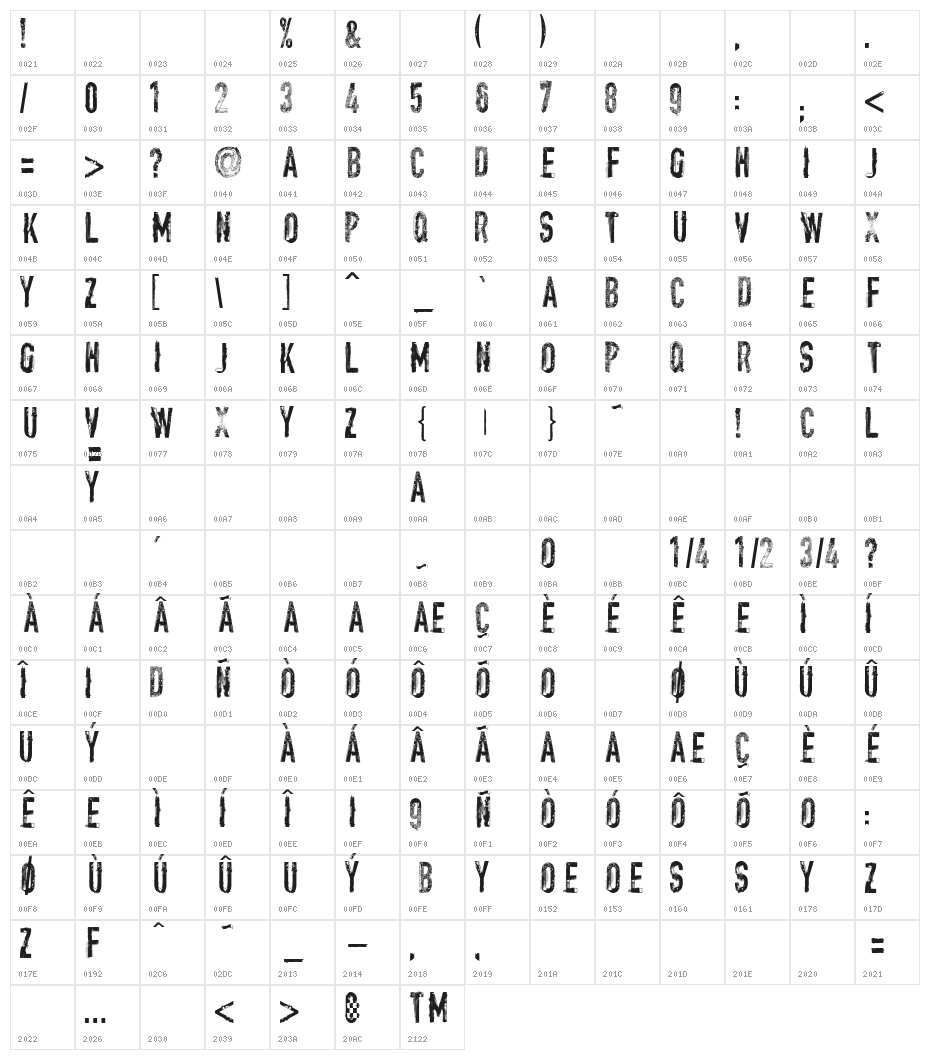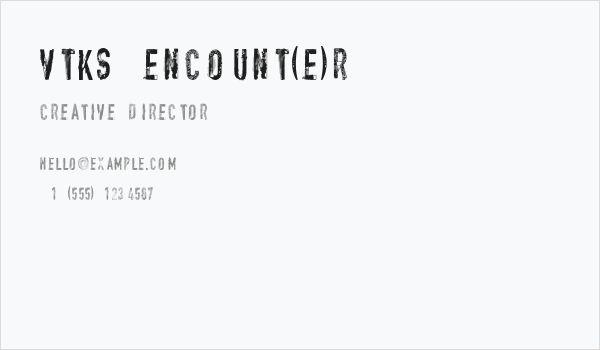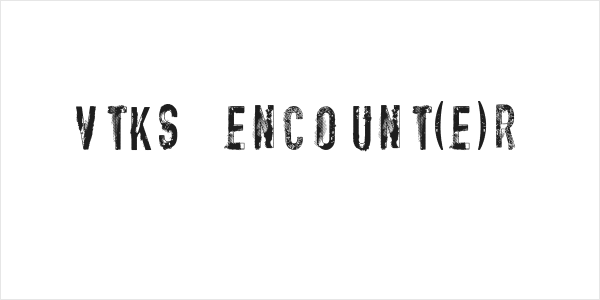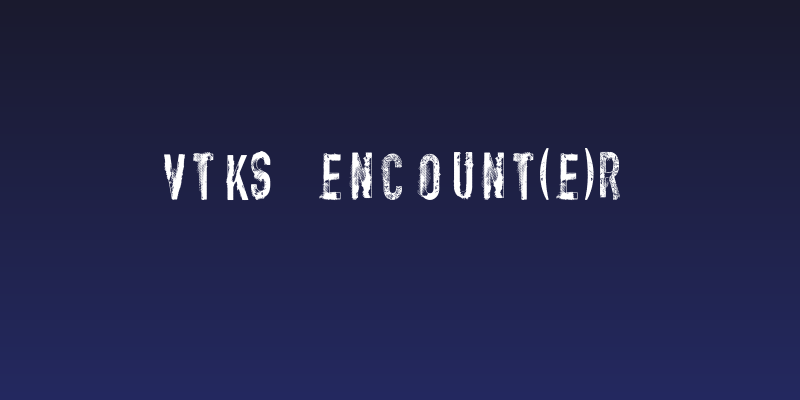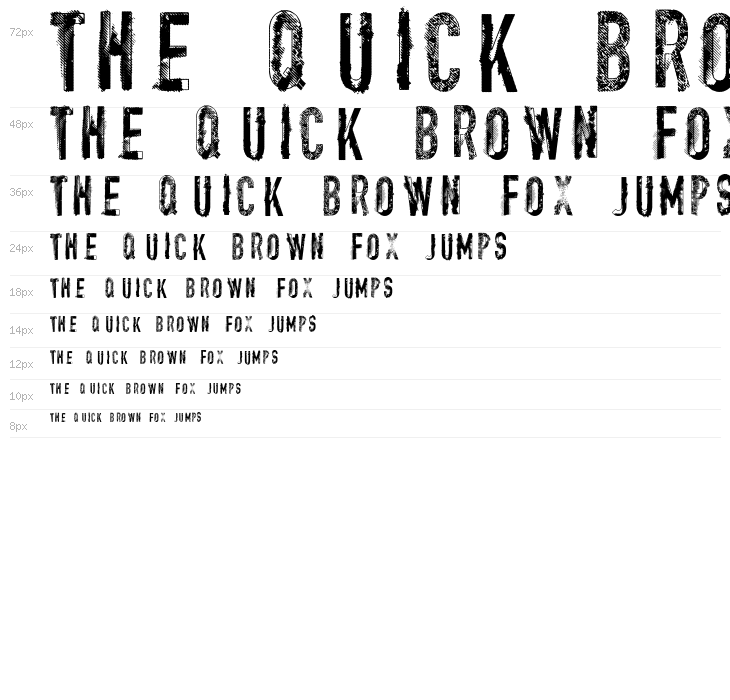
vtks encount(e)r Font
vtks encount(e)r Description
This font features a distressed, grunge style with a textured appearance that gives it a rugged and worn look. The characters are bold and impactful, with a rough, uneven surface that suggests a sense of age and weathering. The uppercase and lowercase letters maintain a consistent style, with each character exhibiting unique variations in texture. The numbers and special characters follow the same distressed aesthetic, making the font cohesive across all elements. This font's design is ideal for projects that require a bold statement or an edgy, urban feel. Its unique texture and bold presence make it stand out, adding character and depth to any design.
| Overall Style | Grunge, Urban, Edgy |
| Proposed Projects | Ideal for posters, album covers, branding for edgy products, or any design needing a grunge aesthetic. |